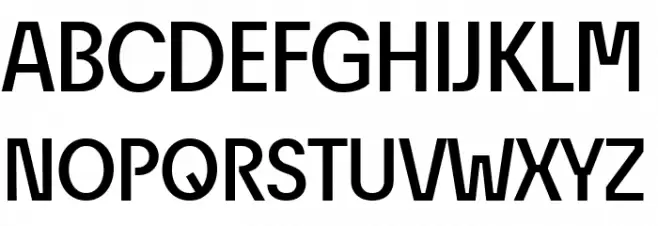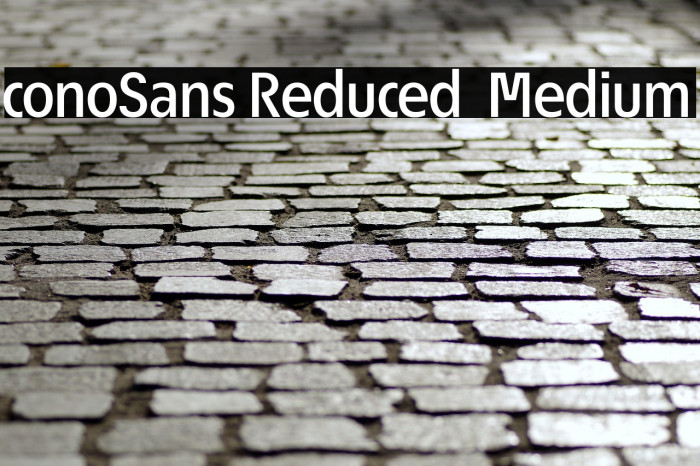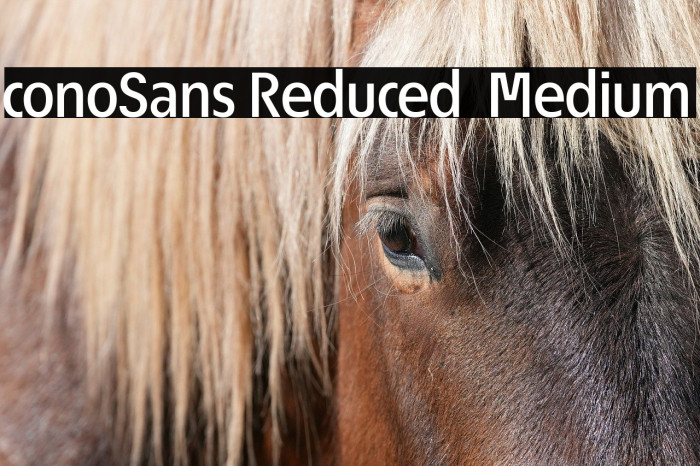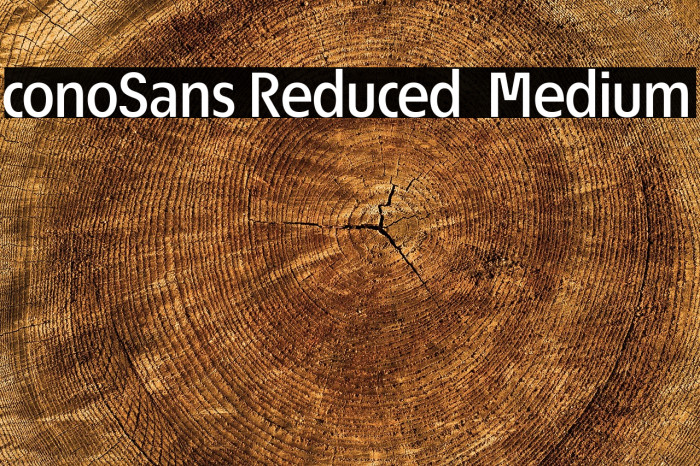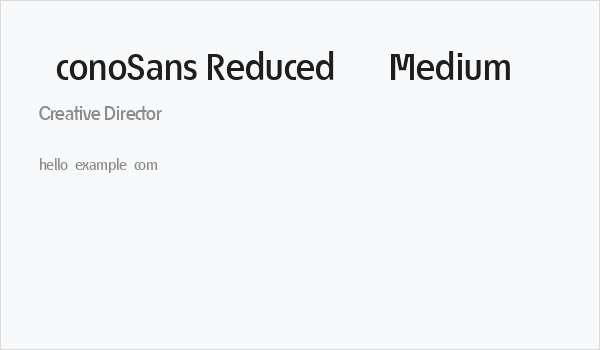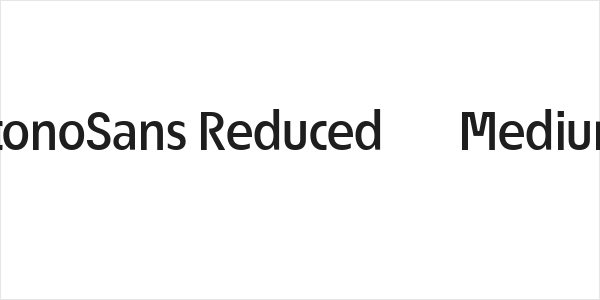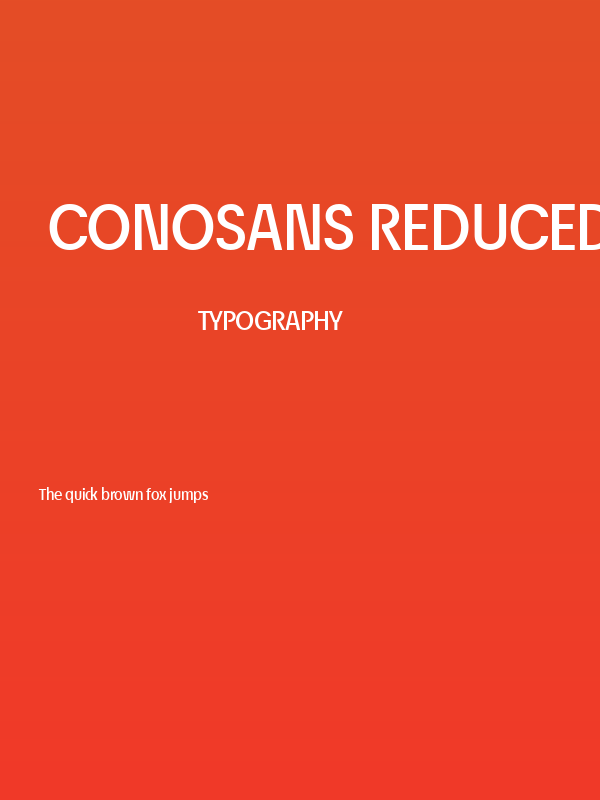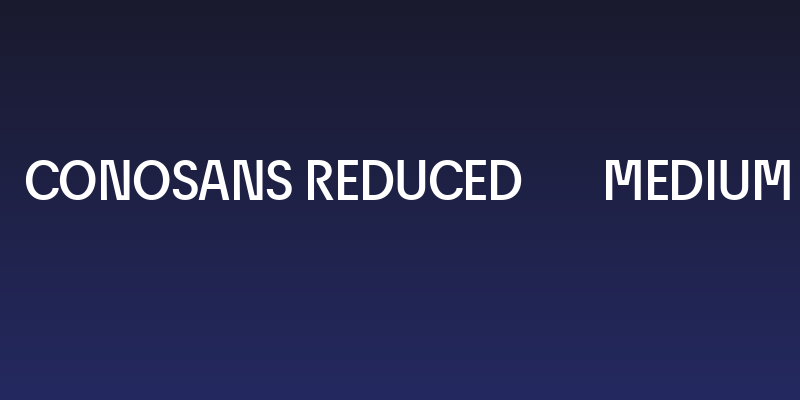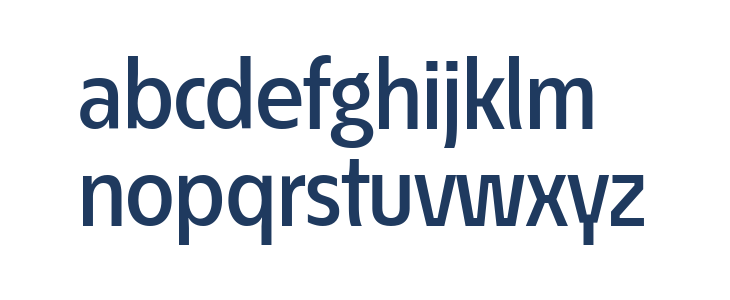
ÉconoSans Reduced 65 Medium Font
ÉconoSans Reduced 65 Medium Description
This font presents a clean and modern sans-serif style, characterized by its geometric shapes and uniform stroke widths. The letters are well-proportioned, offering a balanced and harmonious appearance. The uppercase and lowercase letters maintain a consistent design, ensuring readability and versatility. The font's simplicity and clarity make it suitable for a wide range of applications, from digital interfaces to print media. Its straightforward design is complemented by a slight curvature in certain characters, adding a touch of elegance without compromising its modern aesthetic.
| Proposed Projects | Ideal for branding, web design, user interfaces, and corporate materials. |